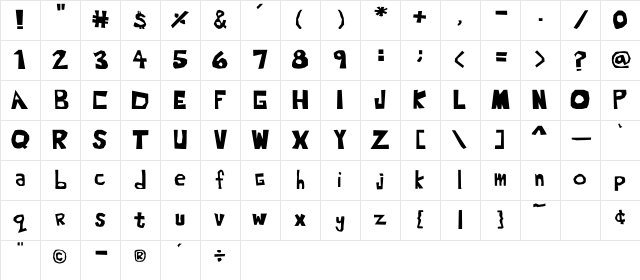
Blahh Regular Free Font
Blahh Regular
Design Context for Blahh
Blahh is a composed and adaptable typeface that performs quietly and consistently across a wide range of design contexts.